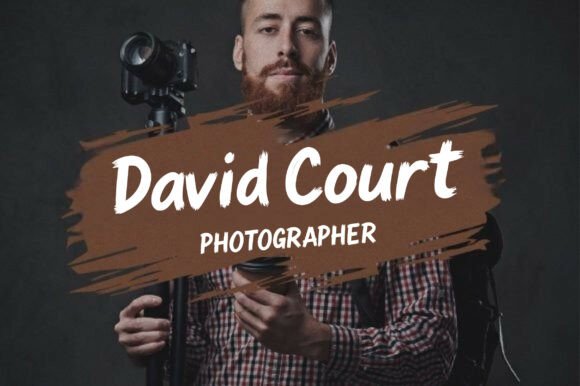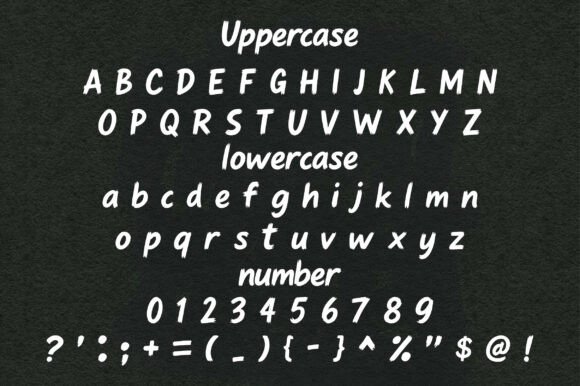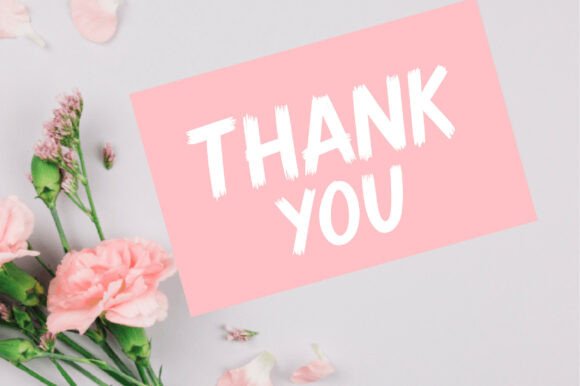
Introduction to Rough Brush Font Font
Fonts play a crucial role in design, and the Rough Brush Font font is a typeface that brings both character and versatility to any project. Whether you’re working on a branding project, a website, or a print design, the Rough Brush Font font offers a unique style that can elevate your work.
Rough Brush is a bold and hand-drawn brush font, crafted with natural texture and vibrant movement in every stroke.
Its energetic, expressive lettering style brings a raw, handcrafted feel that instantly stands out in any design Perfect for t-shirt designs, logos, posters, stickers, branding projects, and any modern display artwork that needs a strong, artistic touch.
Key Features of Rough Brush Font Font
Why Choose Rough Brush Font Font?
The Rough Brush Font font is more than just a typeface – it’s a design tool that helps you communicate your message with style and clarity. Its unique character set and versatile design make it suitable for a wide range of applications, from elegant invitations to bold headlines.
With its carefully crafted letterforms and balanced proportions, the Rough Brush Font font ensures readability and visual appeal across all mediums.
What makes Rough Brush Font font special?
The Rough Brush Font font stands out with its unique design, exceptional readability, and versatility across various design applications.